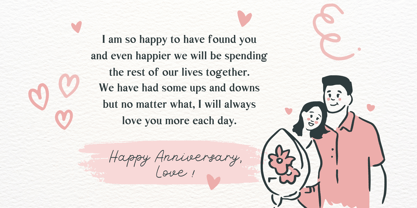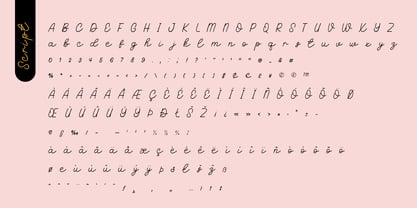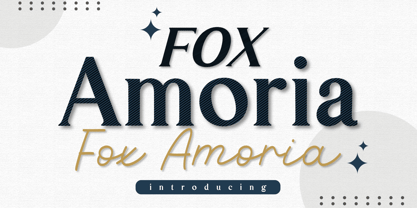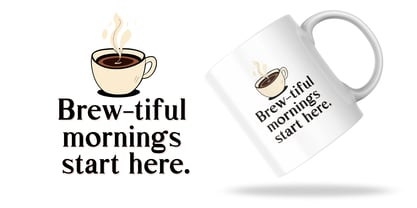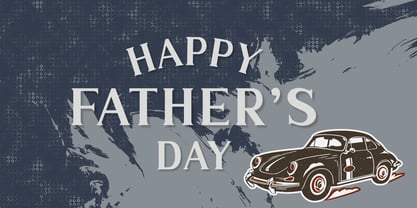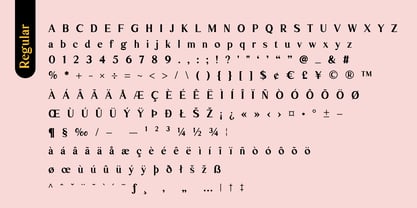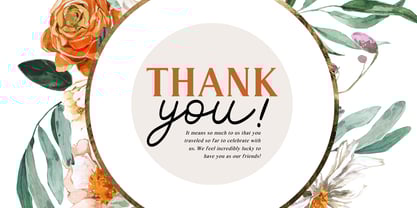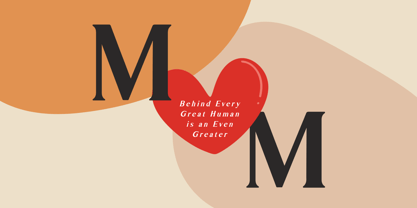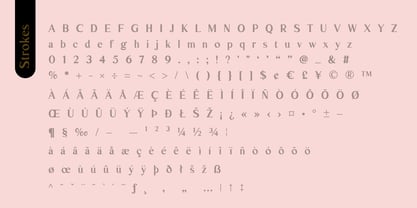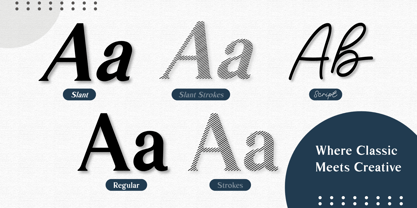
Fox Amoria
Fox Amoria is a stylish and versatile serif font family that blends classic elegance with modern creativity. With multiple styles including Regular, Slant, Strokes, Slant Strokes, and Script, this font is designed to give you endless design possibilities in one package.
Perfect for branding, editorial design, logos, invitations, packaging, and social media, Fox Amoria offers both sophistication and playfulness. The clean serif base provides timeless professionalism, while the script and stroke variations add a touch of personality and artistic flair.
Whether you’re looking to create a luxurious brand identity, a romantic wedding design, or eye-catching creative layouts, Fox Amoria will elevate your project with a unique balance of classic beauty and modern charm.
📌 Suitable for:
• Branding & Logos
• Editorial & Magazine Design
• Wedding Invitations
• Packaging & Labels
• Posters, Quotes, and Social Media Graphics